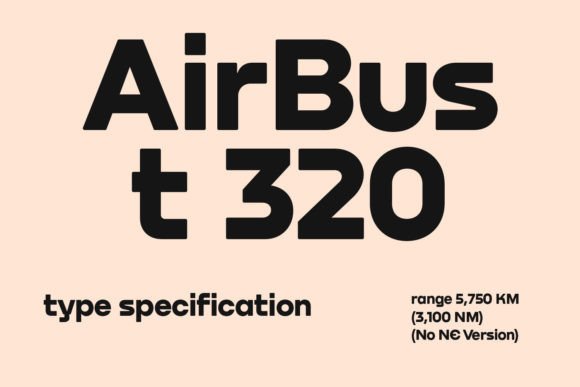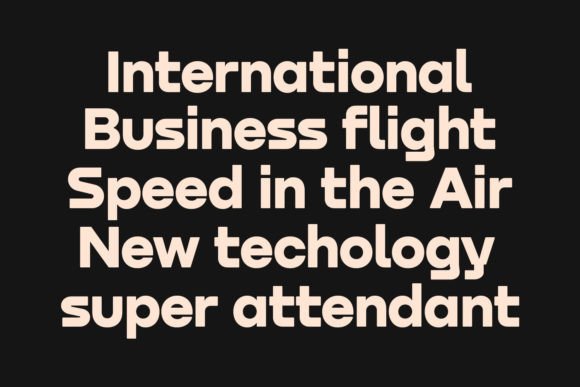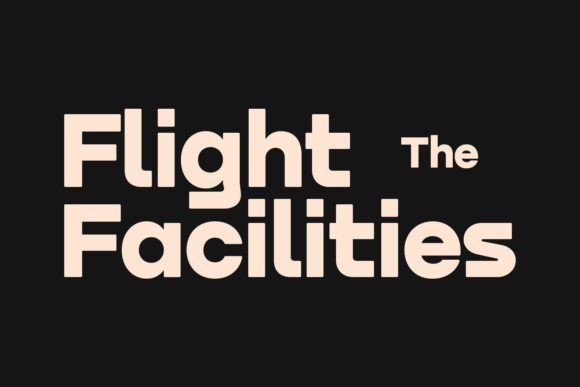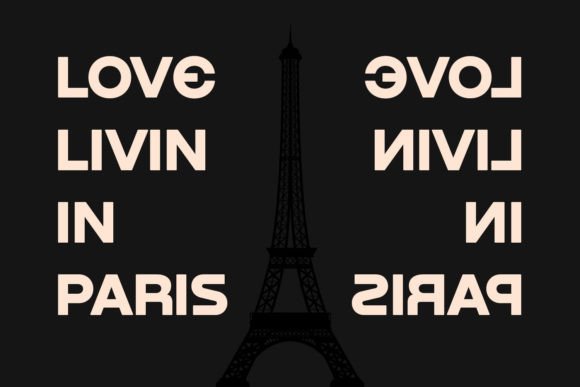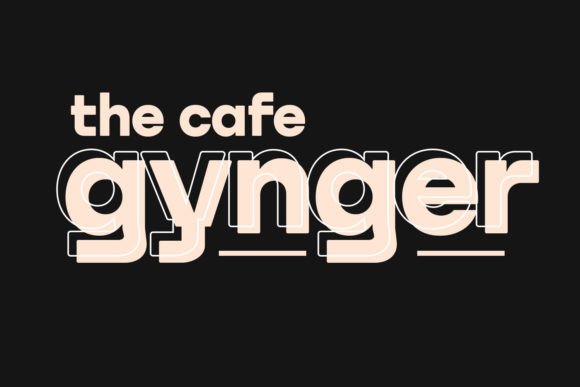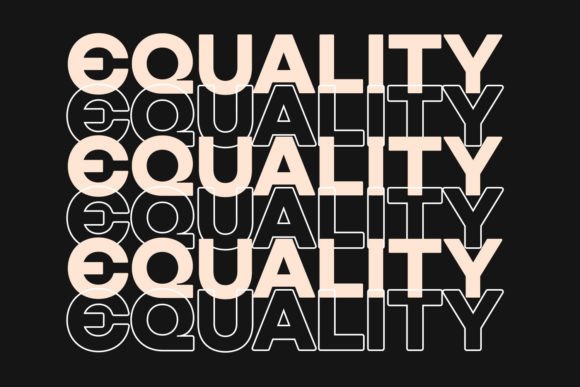
Introduction to Eyktag Font
Eyktag is a simply semi-geometric sans serif font.
Contemporary and fresh, it is perfect for any design you wish to create Add it to your creative projects and make them outstanding.
Key Features of Eyktag Font
Why Choose Eyktag Font?
Eyktag Font offers exceptional quality and versatility, making it a valuable addition to your design toolkit. Whether you’re creating for personal projects or commercial use, Eyktag Font delivers professional results.